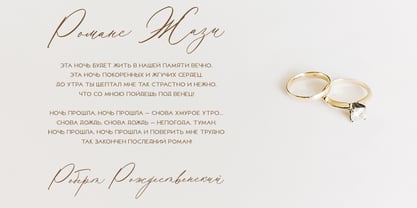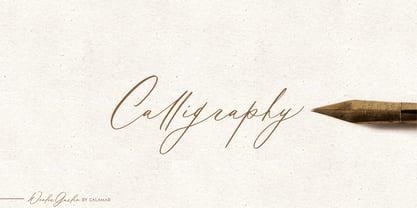
Wonder Garden
by Calamar
Wonder Garden Font Family was designed by Oksana Petrenko and published by Calamar. Wonder Garden contains 2 styles family package options.
A new modern calligraphy font with Latin & Cyrillic support is here: It's Wonder Garden Script.
This beautiful font is for those who are needing of elegance and stylish for their designs and particularly well suited for wedding invitations, cards and feminine branding.
Wonder Garden Script includes Uppercase and Lowercase Cyrillic and Latin Basic Characters, Numbers and Punctuation. Also the font contains ligatures and stylistic alternates (for initial and final letters) to perfectly re-create natural calligraphy.
Wonder Garden Script supports Latin & Cyrillic alphabets giving a huge range of language support, including:
- albanian, belarusian, bosnian, bulgarian, croatian, czech, danish, dutch, english, estonian, filipino, finnish, french, german, hungarian, icelandic, indonesian, irish, italian, latvian, lithuanian, luxembourgish, polish, portuguese, romanian, russian, slovak, slovenian, spanish, swedish, swiss german, turkish, turkmen, ukrainian, welsh and much more.
The Sans Serif font is perfect pair to the Script. It's a classy, high-contrast font that contains only uppercase characters, numerals and punctuation. Now creating your own wedding invitation is super easy and quick.